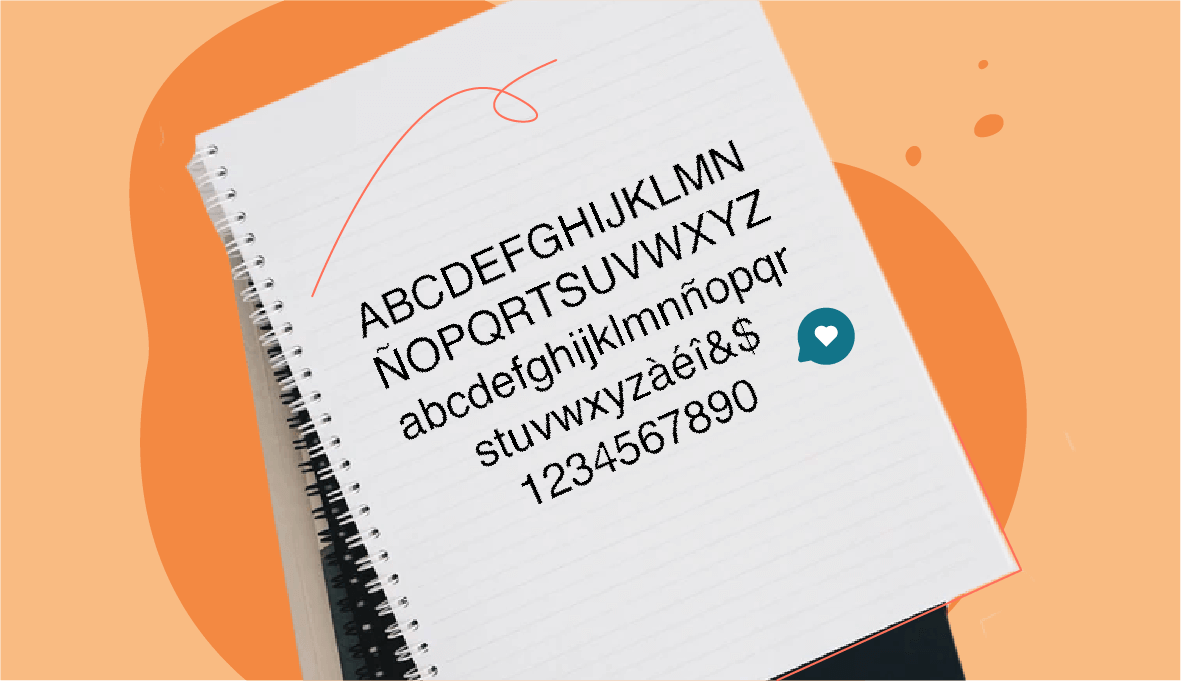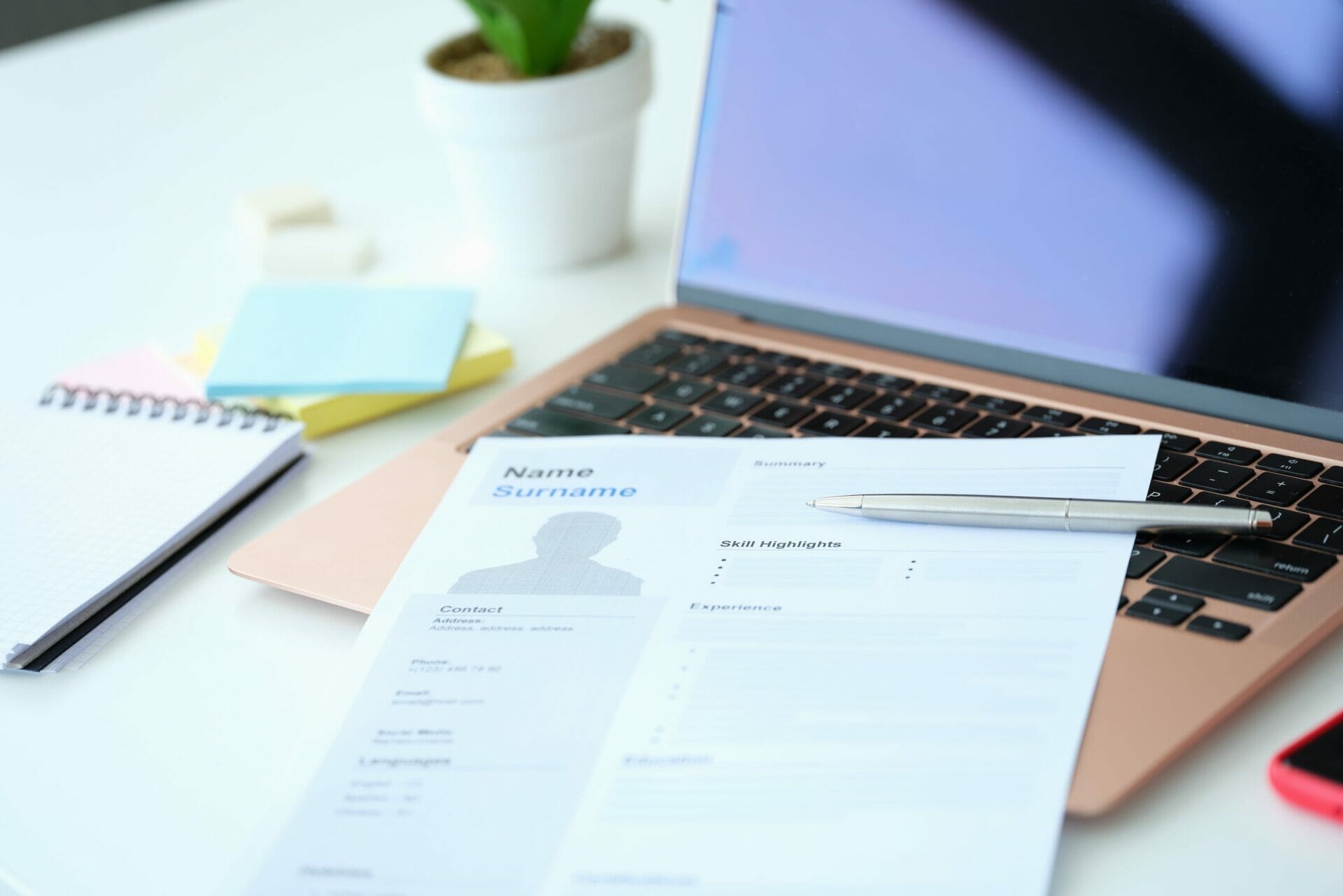
Best Font For Resume Heading . Selecting a font and size that's simple and easy to read can help you demonstrate your professionalism and clearly highlight your experience and skills. In this article, we review. The best font for a resume is one that is professional, readable, clear, and representative of your personal brand. The best resume fonts to choose and fonts to avoid. These font sizes will ensure there is a. You want the hiring manager to read your. I think most folks would lean toward times new roman or calibri, but there are so many factors that go into. The right size font for a resume and a cover letter to. Here’s a hot take — i don’t think there is one best font for a resume. This resume font guide will show you: Make sure your resume font.
The best resume fonts to choose and fonts to avoid. I think most folks would lean toward times new roman or calibri, but there are so many factors that go into. Here’s a hot take — i don’t think there is one best font for a resume. Selecting a font and size that's simple and easy to read can help you demonstrate your professionalism and clearly highlight your experience and skills. This resume font guide will show you: In this article, we review. The best font for a resume is one that is professional, readable, clear, and representative of your personal brand. You want the hiring manager to read your. The right size font for a resume and a cover letter to. These font sizes will ensure there is a.
Best Font For Resume Heading You want the hiring manager to read your. The right size font for a resume and a cover letter to. The best font for a resume is one that is professional, readable, clear, and representative of your personal brand. These font sizes will ensure there is a. Selecting a font and size that's simple and easy to read can help you demonstrate your professionalism and clearly highlight your experience and skills. Make sure your resume font. You want the hiring manager to read your. In this article, we review. I think most folks would lean toward times new roman or calibri, but there are so many factors that go into. Here’s a hot take — i don’t think there is one best font for a resume. The best resume fonts to choose and fonts to avoid. This resume font guide will show you:
Best Fonts for Resume 2021 What is the Best Resume Font Size and Best Font For Resume Heading These font sizes will ensure there is a. You want the hiring manager to read your. This resume font guide will show you: Here’s a hot take — i don’t think there is one best font for a resume. The best font for a resume is one that is professional, readable, clear, and representative of your personal brand. I think. Best Font For Resume Heading.
The Best Fonts and Size to Use on a Resume (Updated 2024) ZipJob Best Font For Resume Heading This resume font guide will show you: These font sizes will ensure there is a. You want the hiring manager to read your. The right size font for a resume and a cover letter to. The best resume fonts to choose and fonts to avoid. Make sure your resume font. I think most folks would lean toward times new roman. Best Font For Resume Heading.
20+ Best Resume Fonts in 2024 [Free Download] Venngage Best Font For Resume Heading You want the hiring manager to read your. These font sizes will ensure there is a. I think most folks would lean toward times new roman or calibri, but there are so many factors that go into. In this article, we review. The best font for a resume is one that is professional, readable, clear, and representative of your personal. Best Font For Resume Heading.
What's the Best Resume Font, Size, and Format [2023] Best Font For Resume Heading Make sure your resume font. Here’s a hot take — i don’t think there is one best font for a resume. You want the hiring manager to read your. This resume font guide will show you: These font sizes will ensure there is a. In this article, we review. The right size font for a resume and a cover letter. Best Font For Resume Heading.
What Is the Best Font for a Resume? (Professional Size & Proper Type Best Font For Resume Heading I think most folks would lean toward times new roman or calibri, but there are so many factors that go into. The best resume fonts to choose and fonts to avoid. Here’s a hot take — i don’t think there is one best font for a resume. You want the hiring manager to read your. Make sure your resume font.. Best Font For Resume Heading.
Best Fonts for a Resume in 2024 Resume Font Tips Best Font For Resume Heading The right size font for a resume and a cover letter to. I think most folks would lean toward times new roman or calibri, but there are so many factors that go into. Make sure your resume font. Here’s a hot take — i don’t think there is one best font for a resume. The best font for a resume. Best Font For Resume Heading.
10 point font resume Best Font For Resume Heading Selecting a font and size that's simple and easy to read can help you demonstrate your professionalism and clearly highlight your experience and skills. The best resume fonts to choose and fonts to avoid. These font sizes will ensure there is a. This resume font guide will show you: In this article, we review. Make sure your resume font. Here’s. Best Font For Resume Heading.
Best Font for Resume Tips for Choosing the Right Typeface to Impress Best Font For Resume Heading In this article, we review. The right size font for a resume and a cover letter to. The best resume fonts to choose and fonts to avoid. This resume font guide will show you: Selecting a font and size that's simple and easy to read can help you demonstrate your professionalism and clearly highlight your experience and skills. The best. Best Font For Resume Heading.
Best Resume Header in 2023 [w/ 10+ Professional Examples] Best Font For Resume Heading The right size font for a resume and a cover letter to. You want the hiring manager to read your. The best font for a resume is one that is professional, readable, clear, and representative of your personal brand. Selecting a font and size that's simple and easy to read can help you demonstrate your professionalism and clearly highlight your. Best Font For Resume Heading.